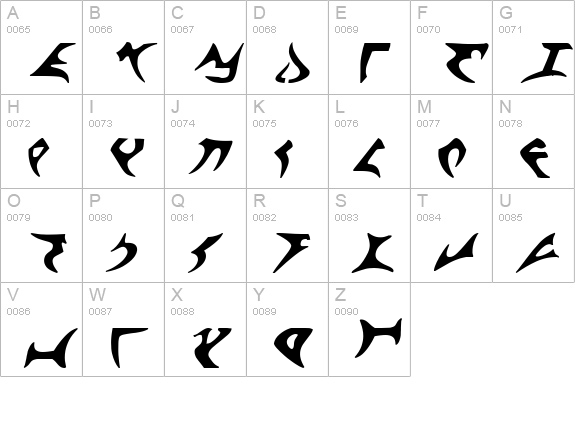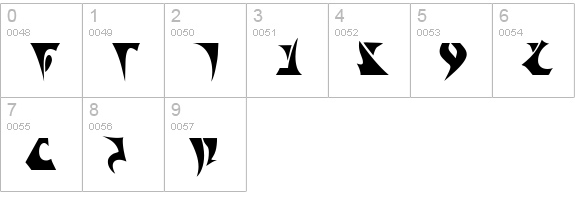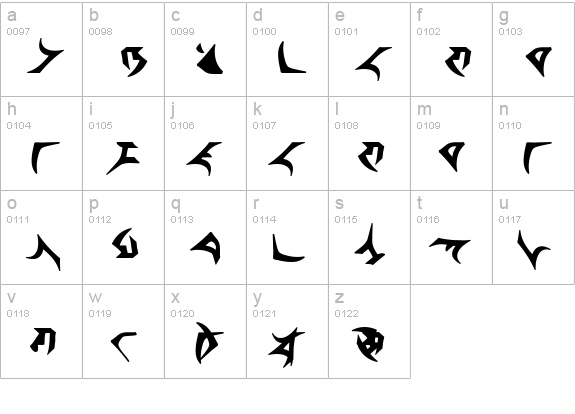
Introducing the majestic and powerful Klingon TNG font, a true testament to the warrior spirit and rich culture of the Klingon Empire. Immerse yourself in the world of Star Trek: The Next Generation with this stunning font that captures the essence of Klingon script. Crafted with meticulous attention to detail, the Klingon TNG font embodies the unique and complex writing system used by the Klingon species. Every stroke and curve has been carefully designed to reflect their fierce and unyielding nature, making it the perfect choice for fans of the Klingon Empire. But what sets the Klingon TNG font apart is that it is not only a remarkable creation, but it is also freely available to download. Yes, you heard it right – this remarkable font can be yours without spending a single latinum. FontsMarket.com proudly offers this fantastic font as a gift to all Klingon enthusiasts, ensuring that the beauty and power of the Klingon script can be easily accessed and enjoyed by all. So, whether you are a devoted Klingon warrior or simply a fan of the Star Trek franchise, the Klingon TNG font is a must-have addition to your font collection. Let your words roar with strength and honor as you wield the power of the Klingon Empire's script. Embrace the legacy of the Klingons and download the Klingon TNG font today, exclusively at FontsMarket.com.